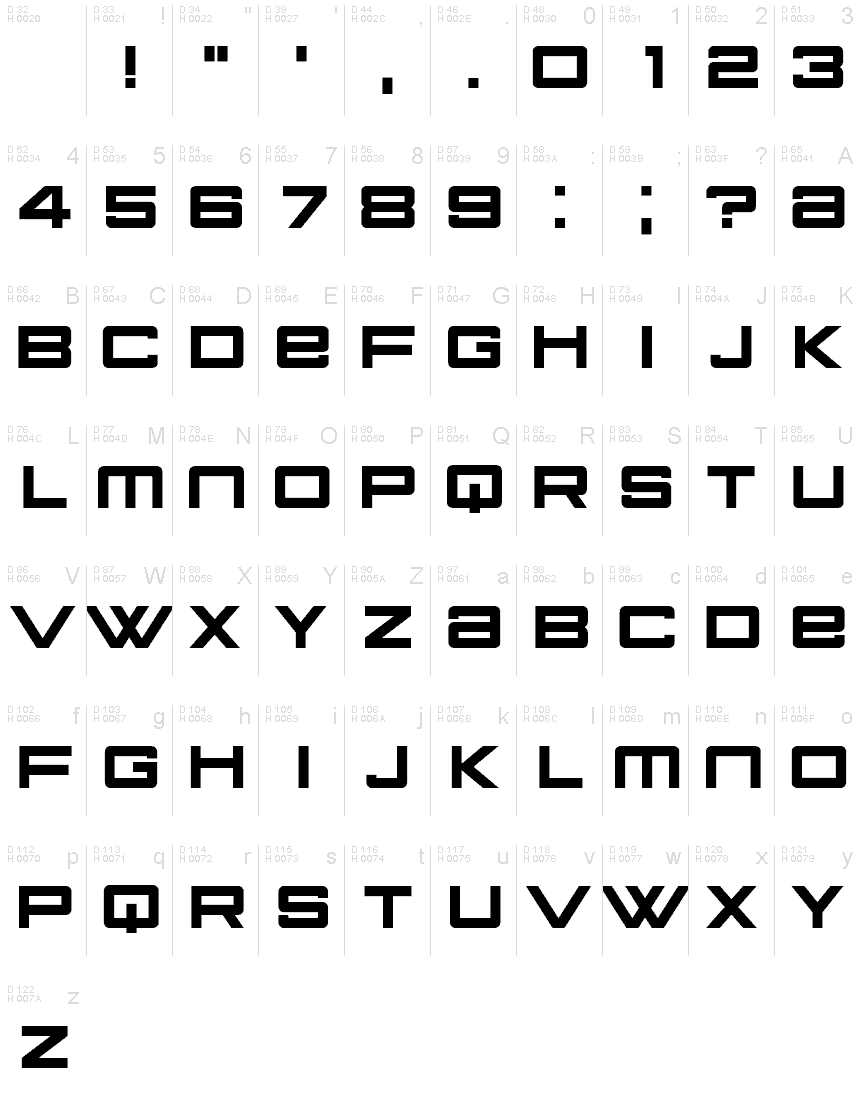
Cyprien Regular
Cyprien font is a modern sans serif typeface designed by Vladimir Nikolic. With each character featuring sleek geometric shapes, it can easily be called a futuristic and digital-oriented font. Whether for business or personal purposes, use it slightly increasing the tracking to make your text streamlined and sophisticated. It is superb in branding contexts such as logos, slogans, and titles or as body text in books or website articles.
The font’s unique design makes it versatile for various uses including science magazine covers, technology-themed product labels and packaging designs plus sci-fi movie posters. Visually stunning social media posts will often require effective typography which this free expanded sans serif provides in an instant. Get similarly excellent embossed letters on business cards whenever you print using this typeface.